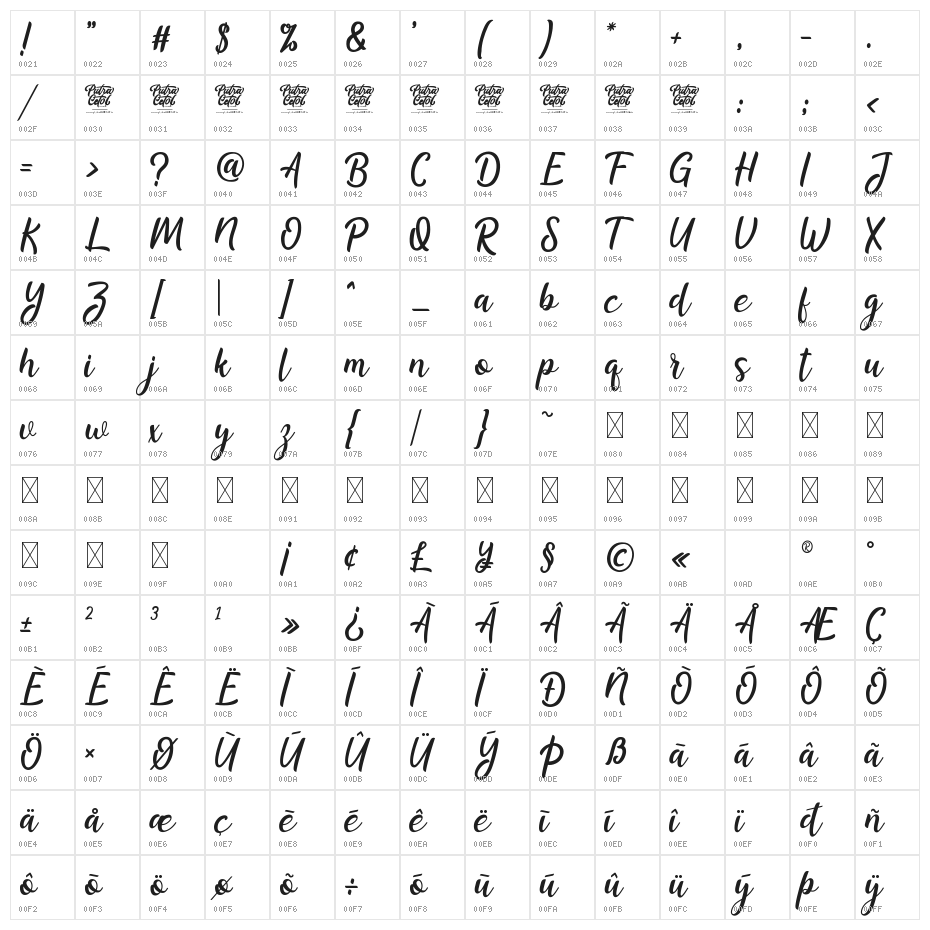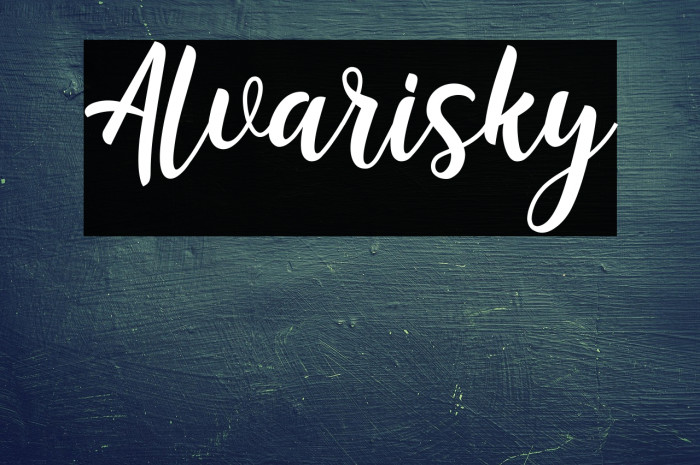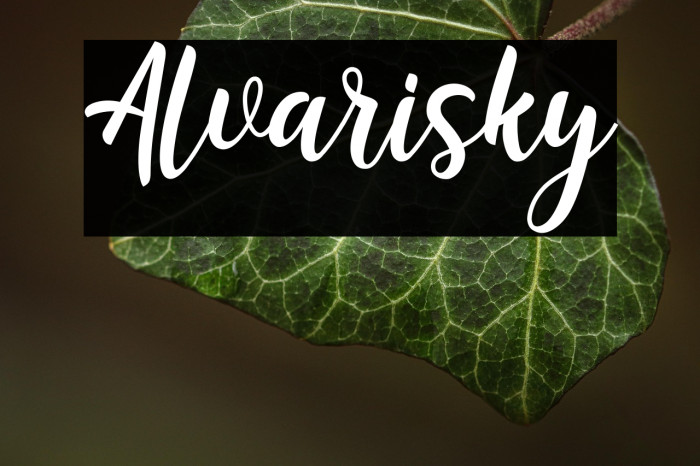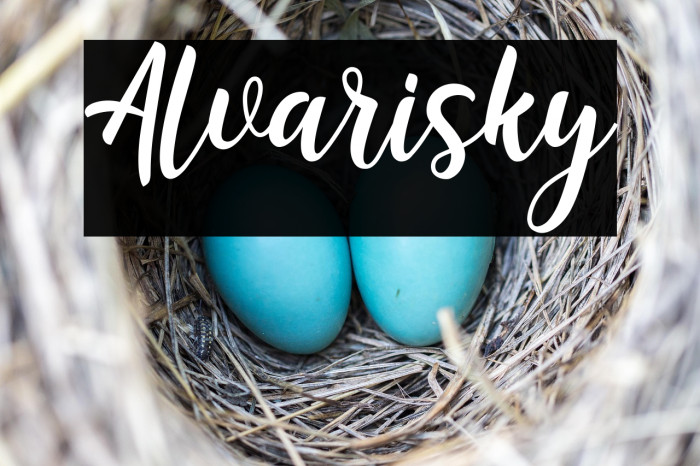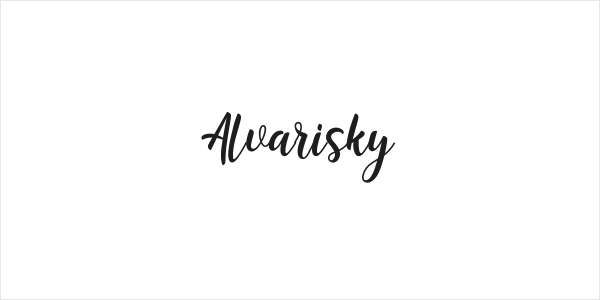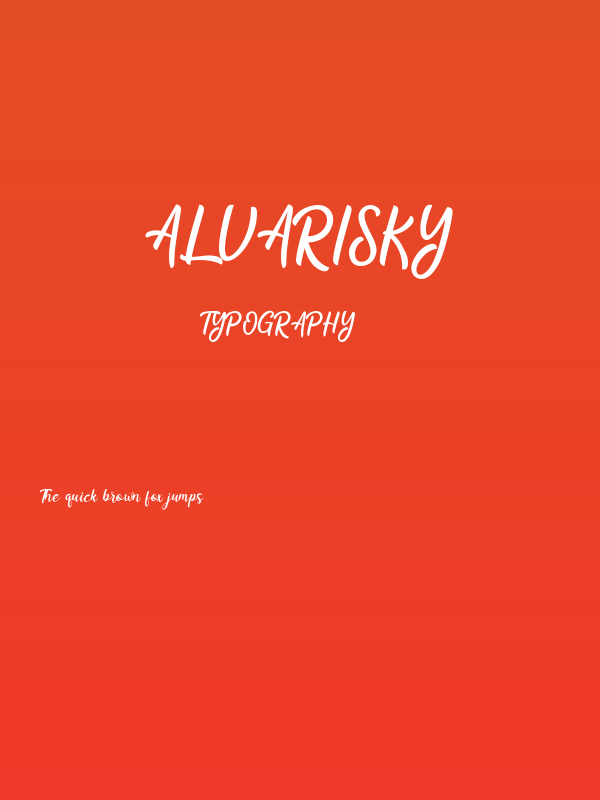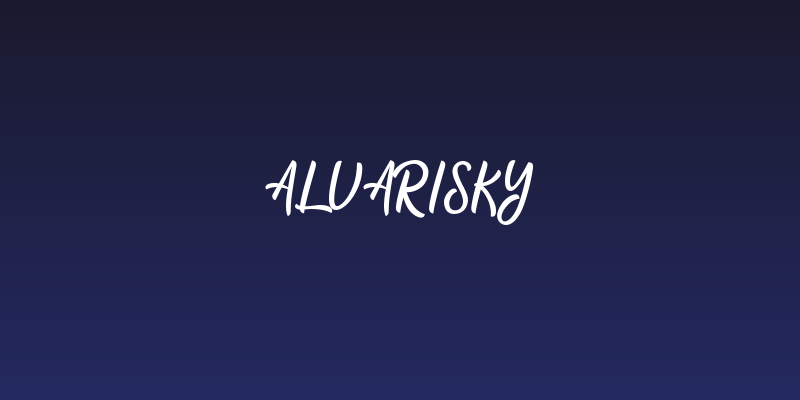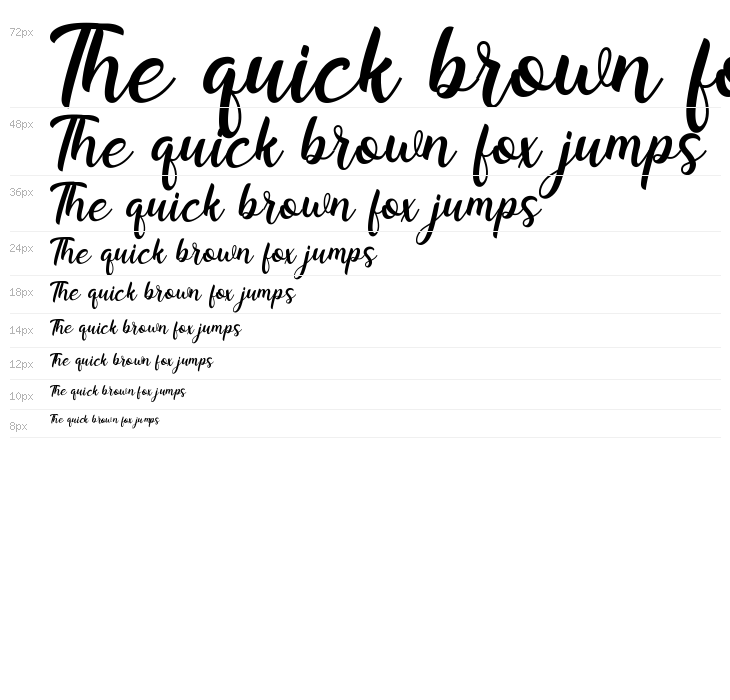
Alvarisky Font
Alvarisky Description
This font features a dynamic and flowing script style, characterized by its smooth, cursive strokes and elegant loops. The uppercase letters are bold and slightly slanted, giving a sense of movement and fluidity. The lowercase letters maintain a consistent style with a playful yet sophisticated appearance. The numbers and special characters are designed to complement the overall script aesthetic, maintaining the same flowing lines and curves. This font exudes a sense of creativity and elegance, making it suitable for a variety of design projects.
Use CaseLogos, Invitations, Decorative text
Proposed ProjectsIdeal for wedding invitations, greeting cards, branding, and logo design.